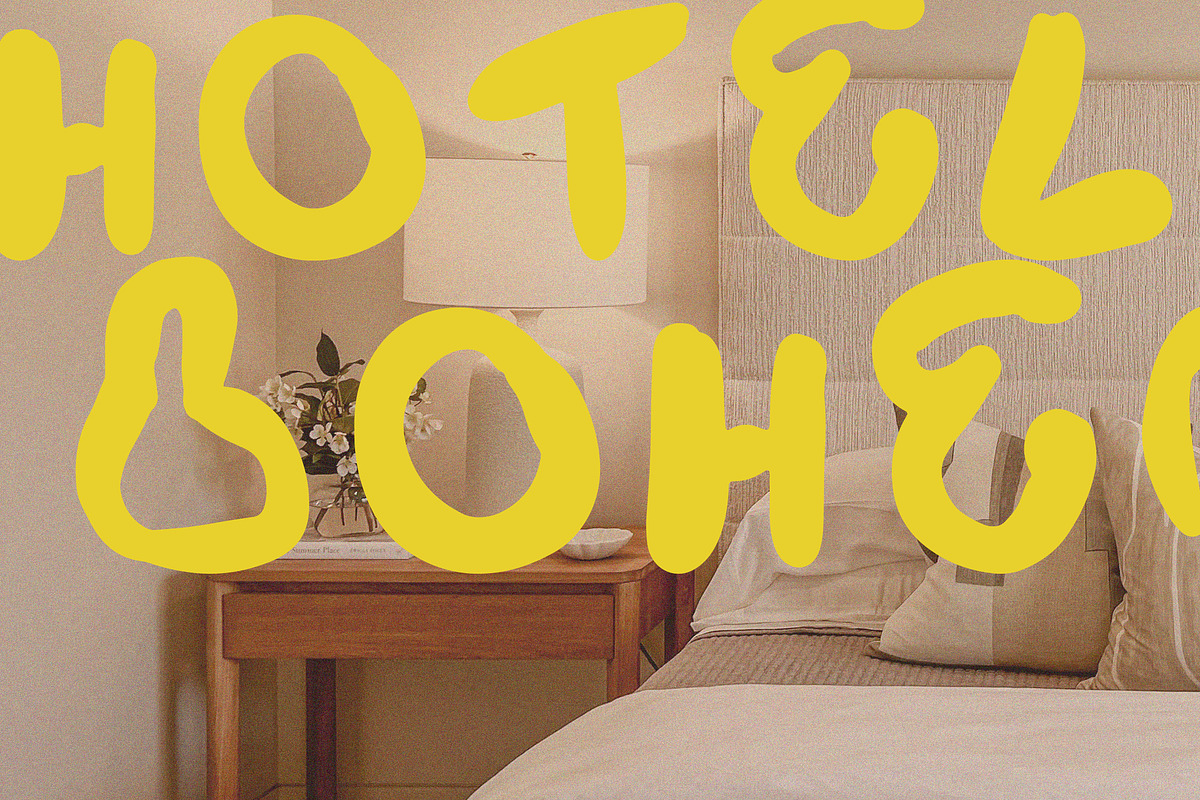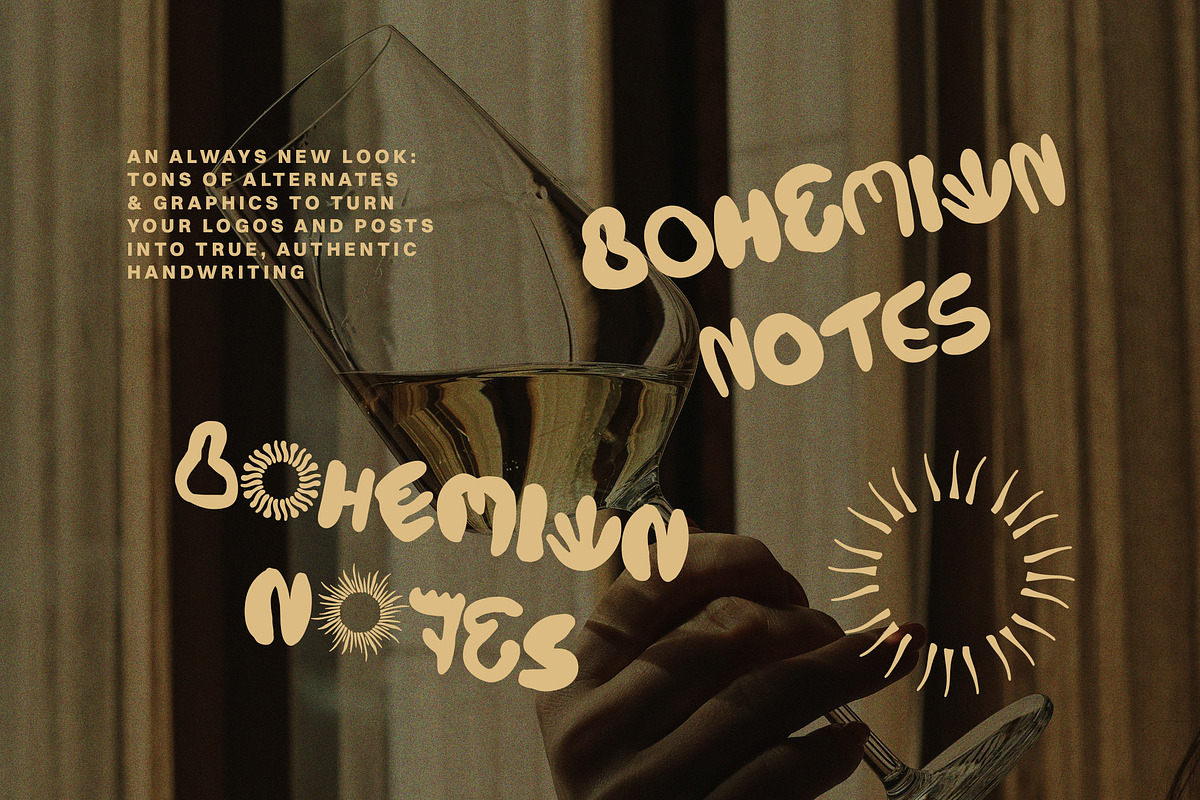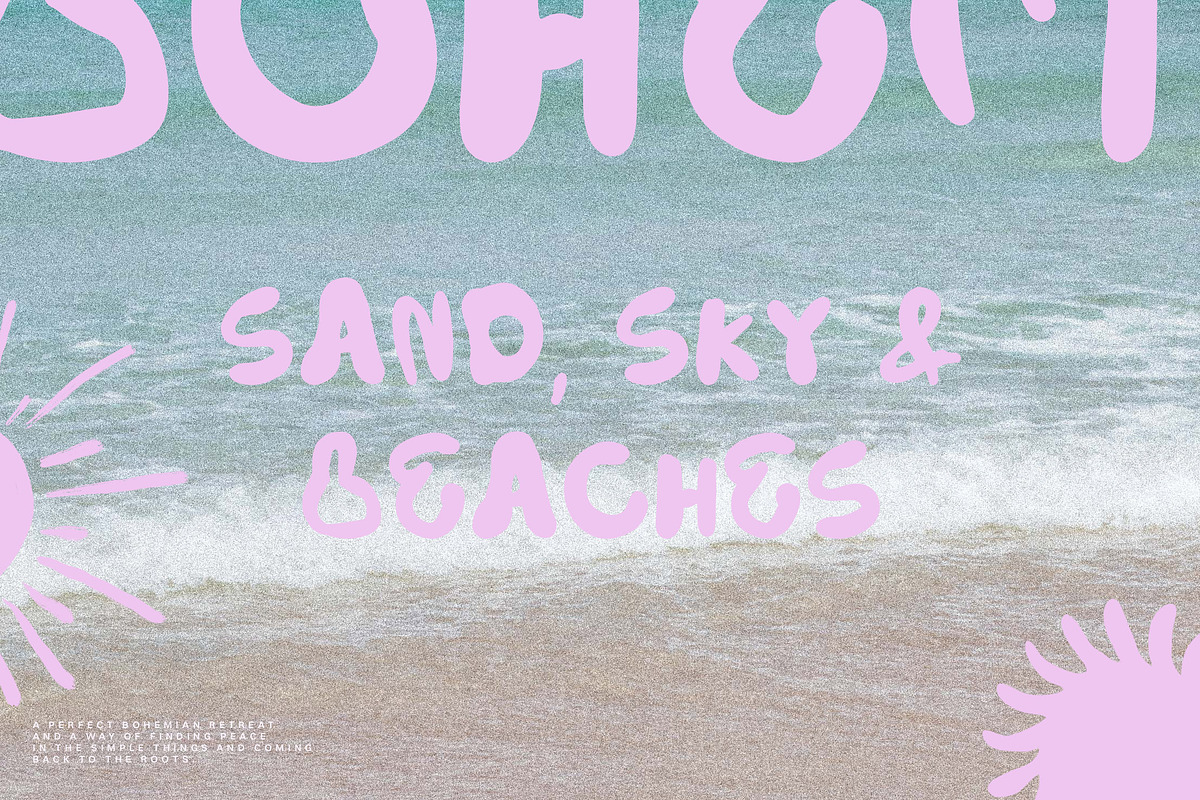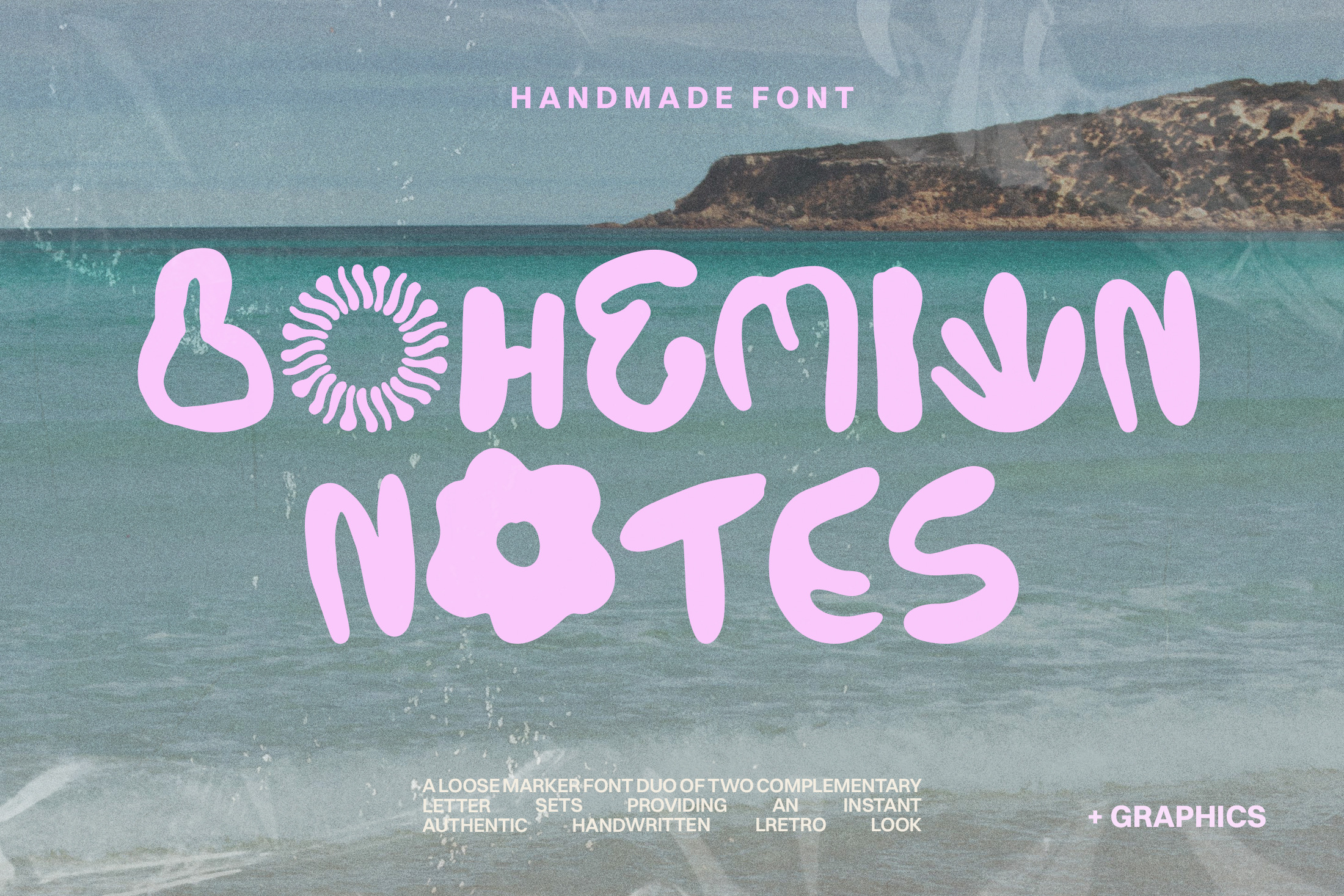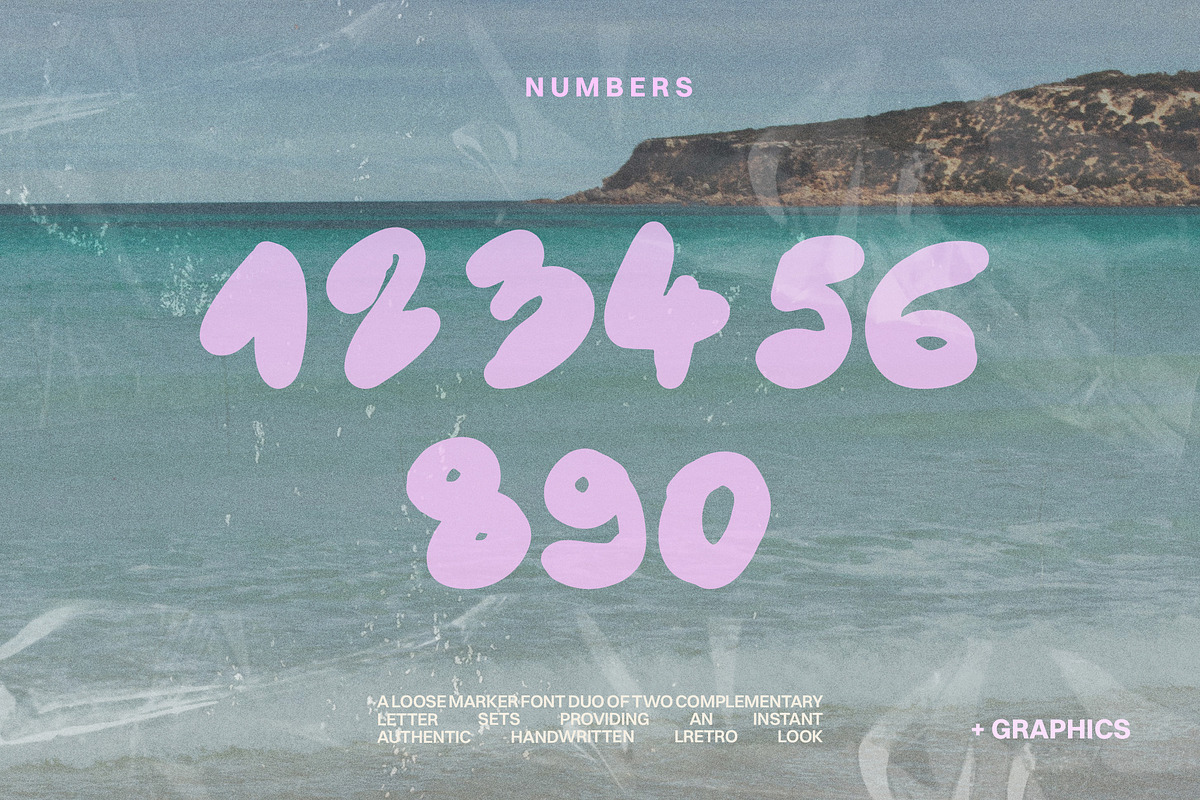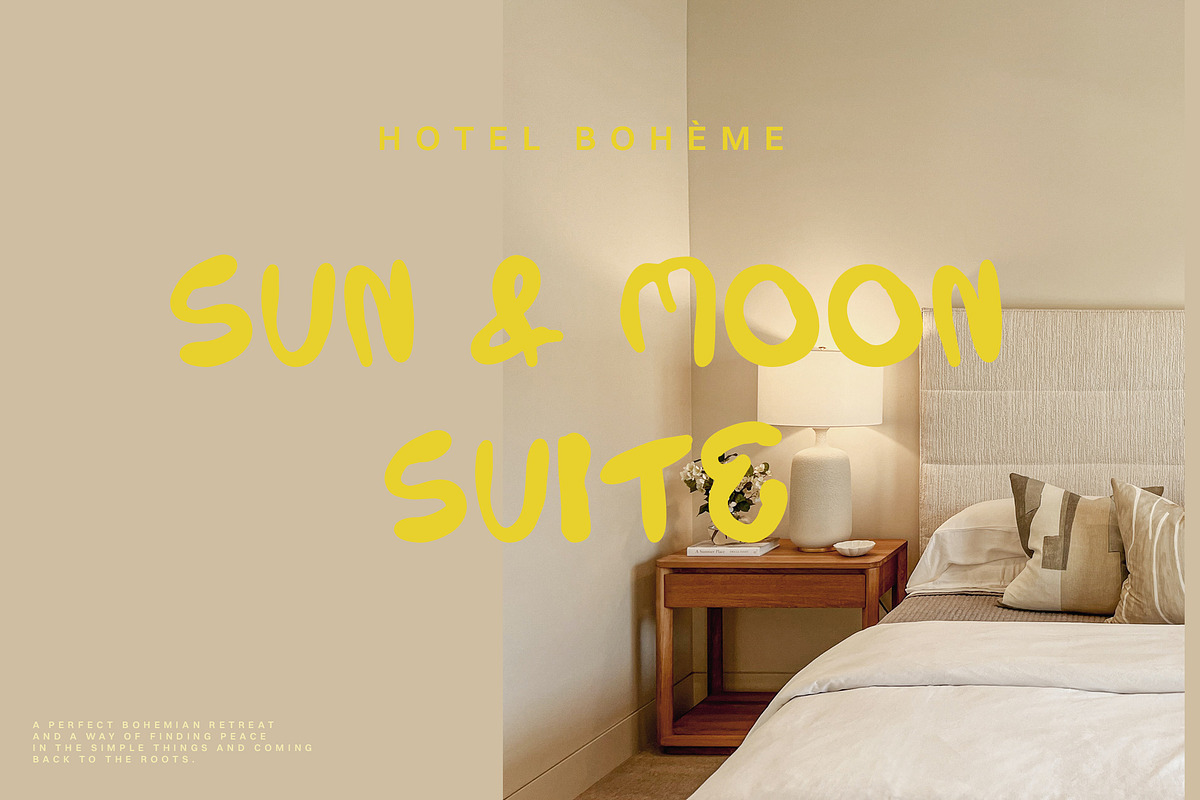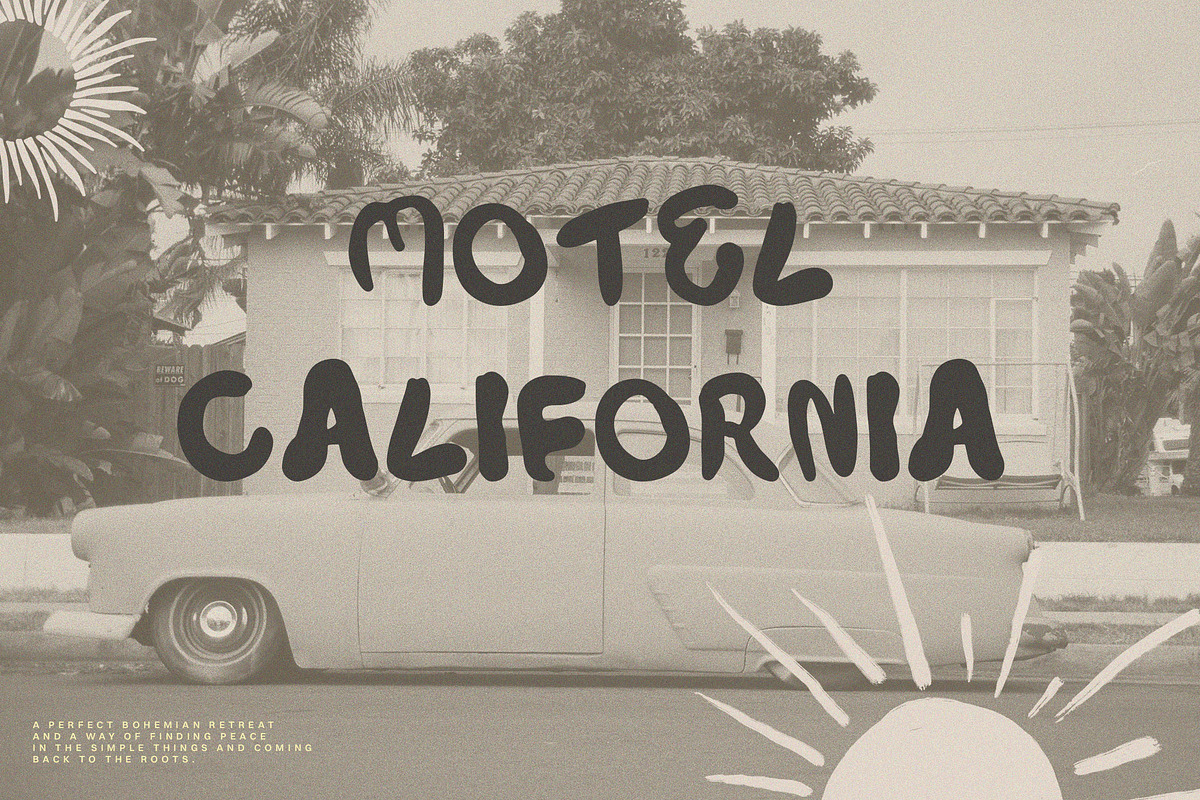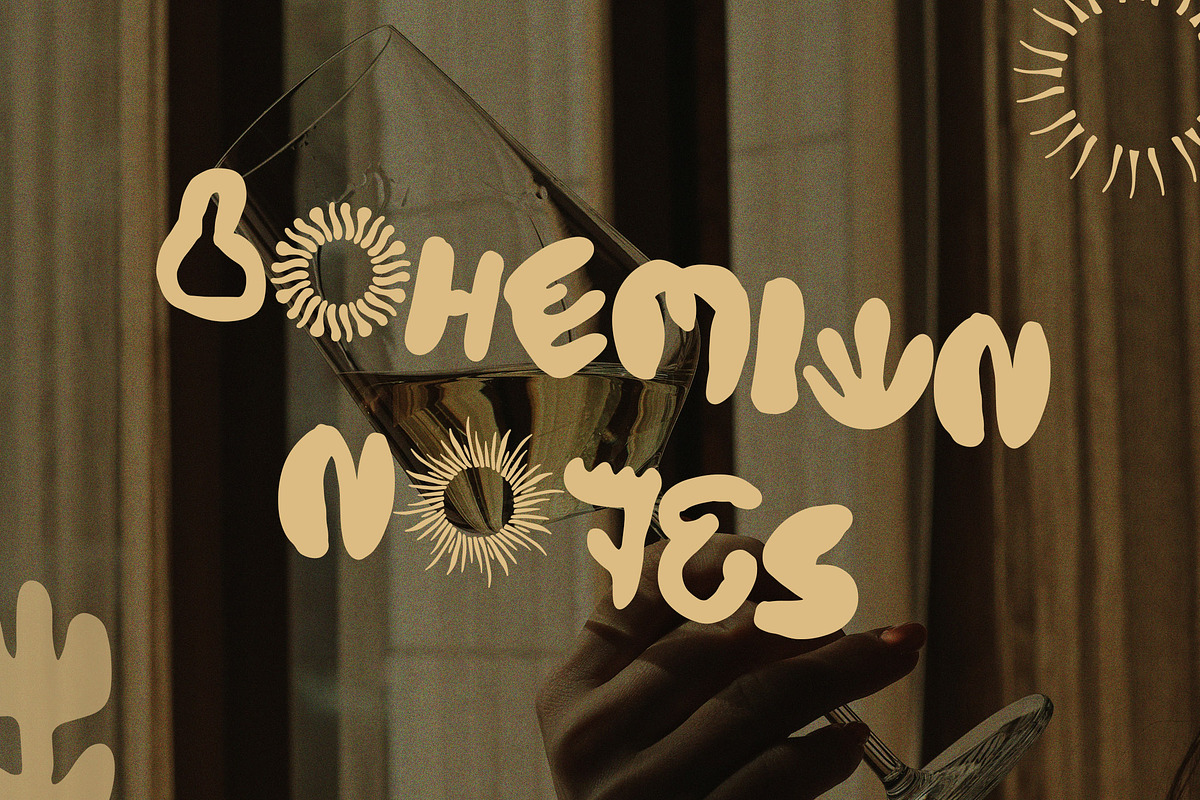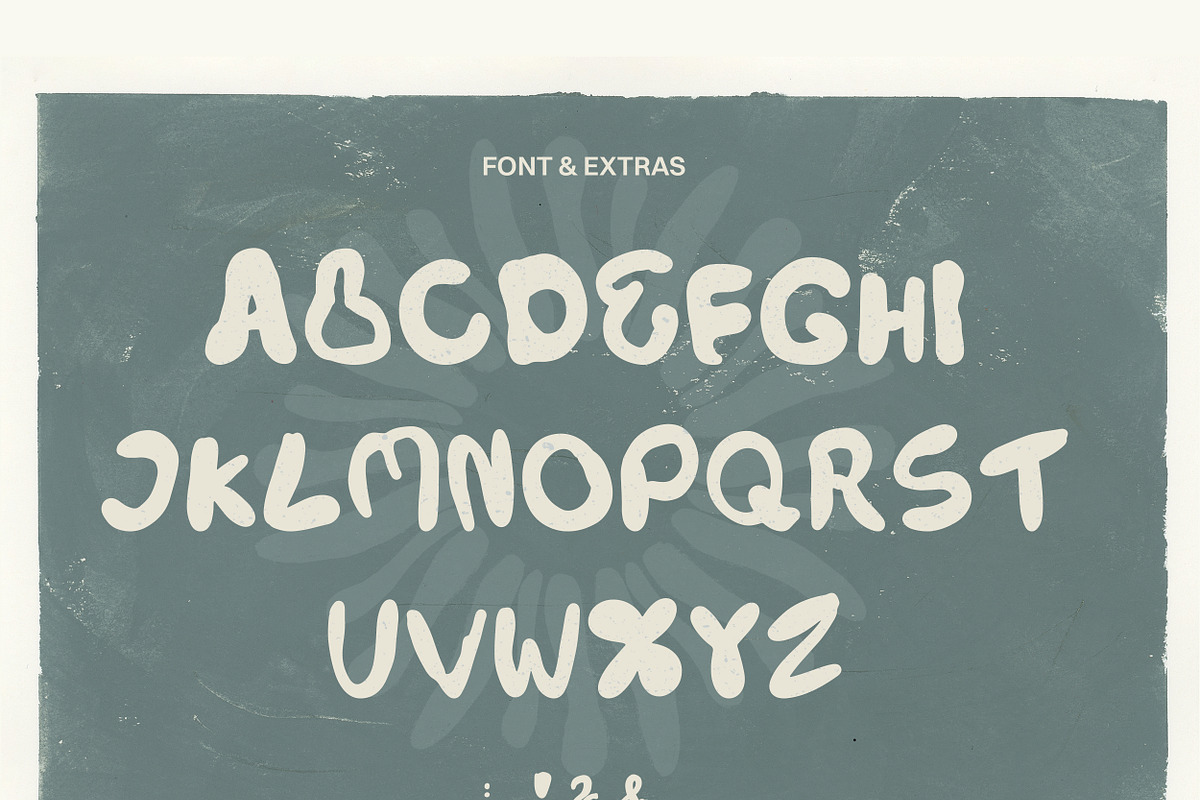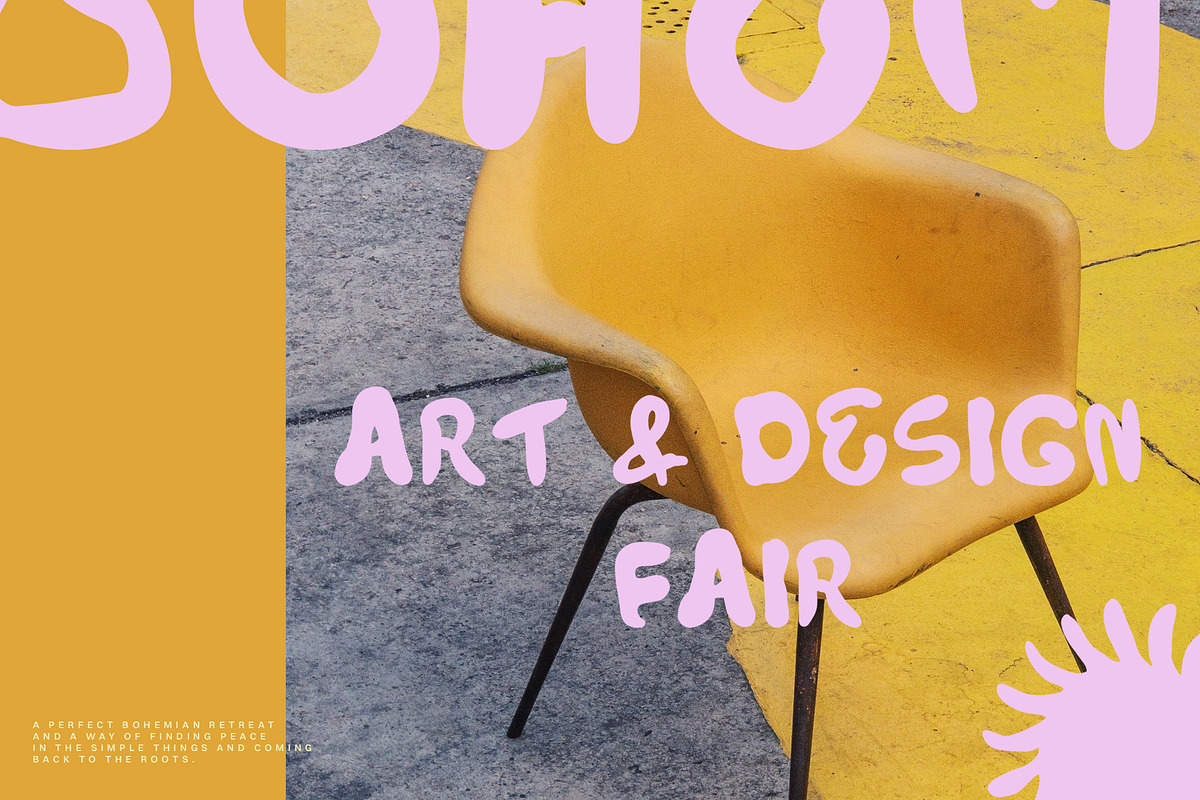
Bohemian Notes Bold Handmade Font
Welcome a free-spirited and Insta-worthy font that makes you a design-trendsetter in minutes! 'Bohemian Notes' is here to take your designs to a whole new level of awesome, sprinkling in some bohemian vibes, handmade brushes and a wild spirit.
The best: It comes with tons of alternates and characters for always new and authentic looks. Not only does every letter come with a matching-yet-different alternate but there's also lots of little sun symbols, boho style icons and illustrations to instantly elevate your design!
Create amazing website, brands and logos, fun stationery and greeting cards, wedding invitations, posters and printables or beautiful social media posts using this bold marker font. Enjoy creating! :)